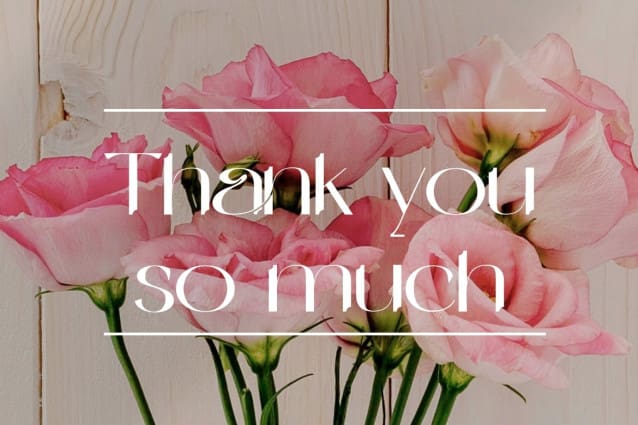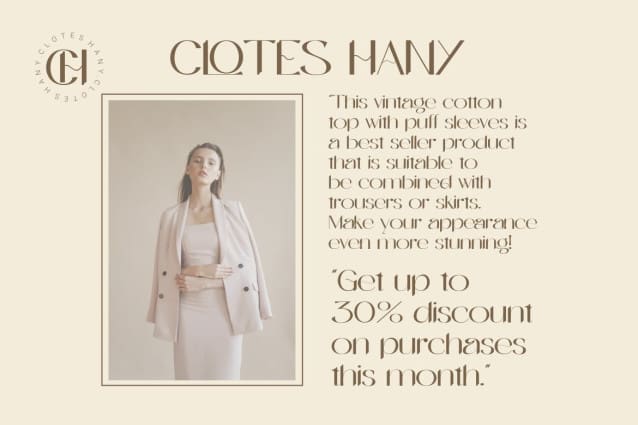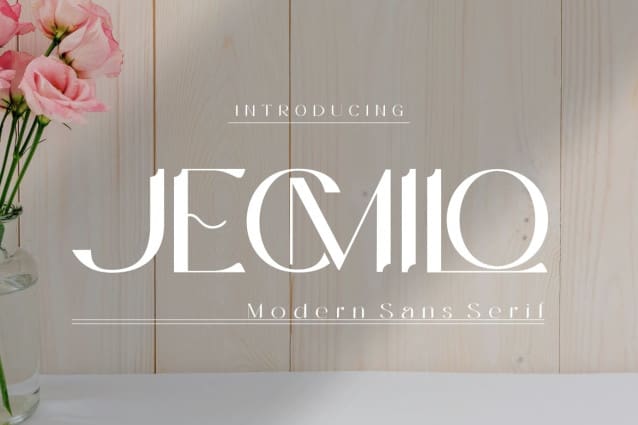
Jecmilo Font
Jecmilo Font – Modern Stylish Sans Serif is a modern and authentic font. Perfect for professional needs and product branding, this font is suitable for all branding projects such as quotes, logos, blog headers, posters, ribbons, letters, invitations, stationery, etc. Designed to be versatile and flexible, it can be used on a variety of projects and media. Extraordinary in a variety of contexts